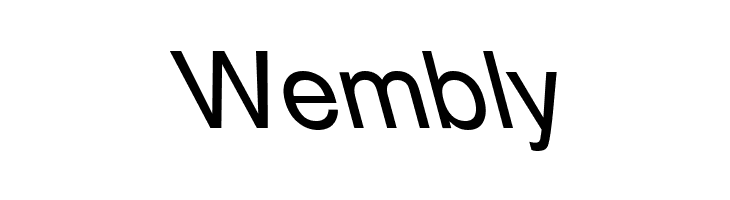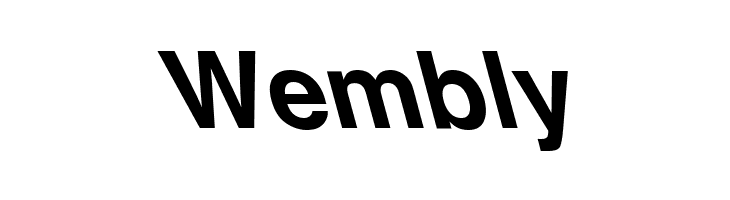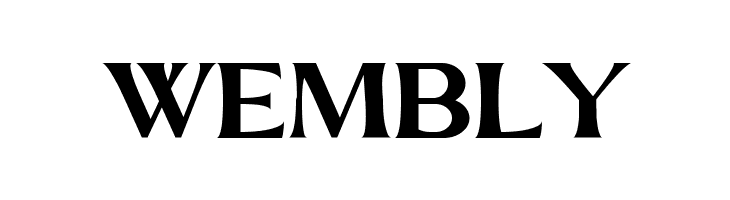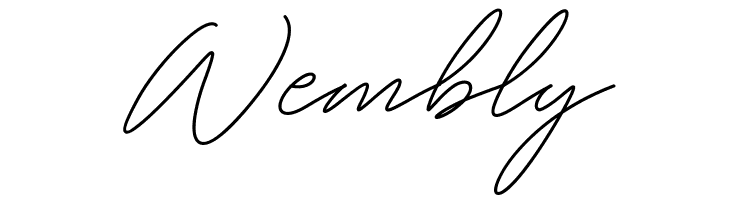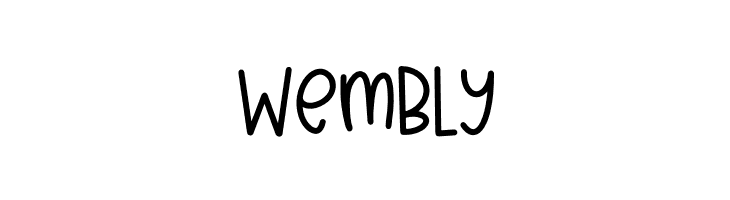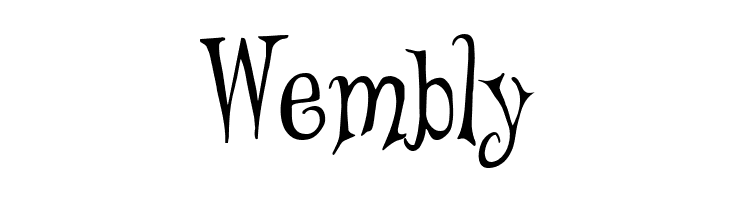
An elegant, flowing script font with smooth, connected strokes.
A bold, playful font with rounded edges and a cartoonish style.
Playful handwritten font with rounded edges.
A modern, clean sans-serif font with uniform strokes and high legibility.
A bold and modern font with thick, uniform strokes ideal for impactful headlines.
Bold, italicized font with a modern and assertive style.
A modern sans-serif italic font with clean lines and balanced proportions.
A bold, high-contrast serif font with sharp, angular serifs.